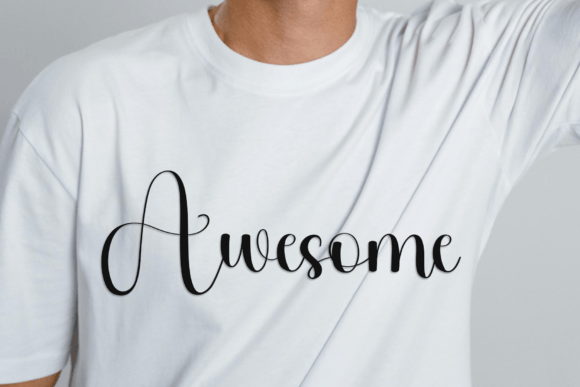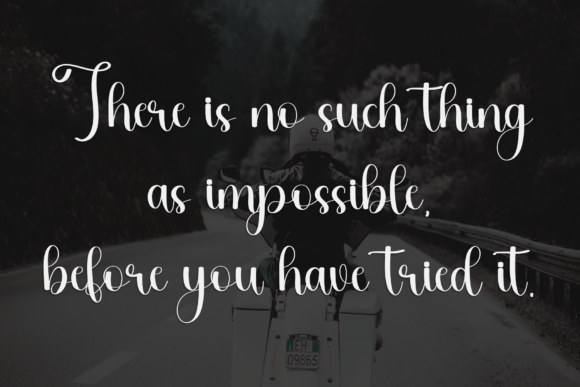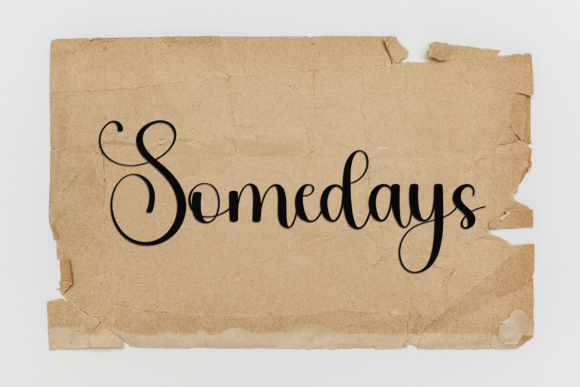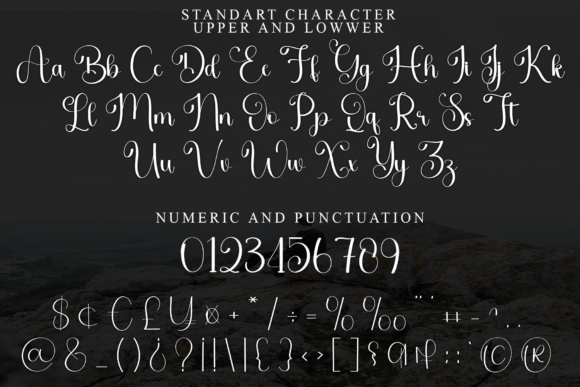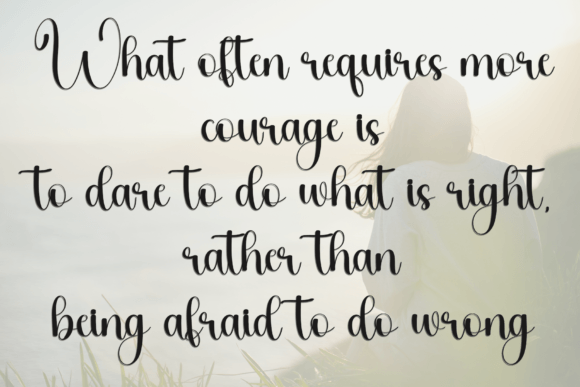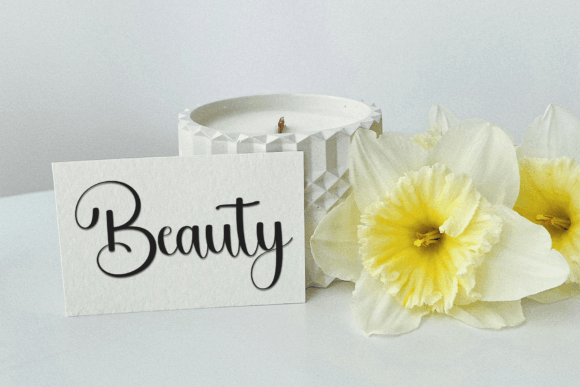
Introducing Bold Sample Font: The Ultimate Holiday Typeface
Are you looking for a font that captures the essence of the holiday season? Do you want to add a touch of magic to your designs and make them stand out? Look no further than Bold Sample Font, a festive and merry typeface that’s perfect for greeting cards, gift tags, and holiday-themed projects.
A Festive and Whimsical Typeface
Bold Sample Font is a decorative typeface that’s designed to bring a cheerful and nostalgic ambiance to your words. Its whimsical flair and decorative elements make it an ideal choice for designers and crafters who want to add a personal touch to their holiday projects. Whether you’re creating greeting cards, gift tags, or holiday-themed posters, this font is sure to make your designs shine.
Bold Sample Font is specifically designed for holiday-themed projects. Its festive and merry design makes it perfect for:
- Greeting cards: Create personalized and festive greeting cards that will make your loved ones feel special.
- Gift tags: Add a touch of magic to your gift tags and make them stand out.
- Holiday-themed posters: Create eye-catching posters that will grab attention and spread holiday cheer.
- Social media graphics: Add a festive touch to your social media graphics and make them more engaging.
Bold Sample Font is PUA encoded, which means you can access all of the amazing glyphs and ligatures with ease. This makes it easy to use the font and get creative with your designs. With PUA encoding, you can:
- Access a wide range of glyphs and ligatures.
- Easily use the font in your designs.
- Create unique and personalized designs.
Why Choose Bold Sample Font?
There are many reasons why Bold Sample Font is the perfect choice for your holiday designs. Here are just a few:
- Unique and festive design.
- PUA encoded for easy access to glyphs and ligatures.
- Perfect for holiday-themed projects.
- Easy to use and customize.
- Supports a wide range of languages.
Tips for Using Bold Sample Font
Here are a few tips for using Bold Sample Font in your designs:
- Use the font in combination with other fonts to create a unique and personalized look.
- Take advantage of the font’s glyphs and ligatures to add a touch of whimsy to your designs.
- Use the font to create eye-catching headlines and titles.